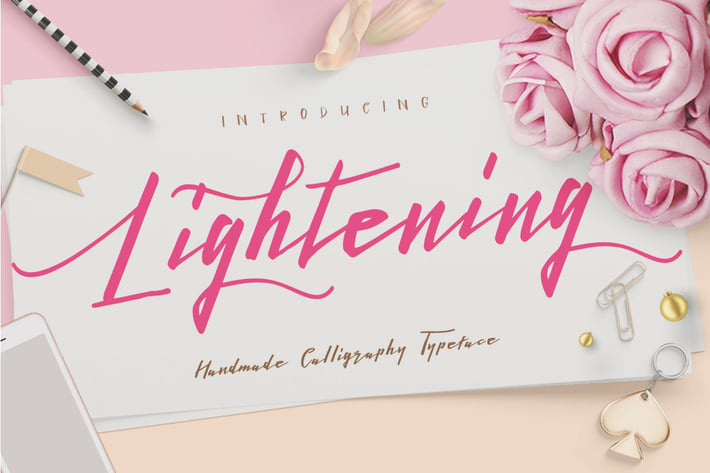
Lightening Script signature font logotype
Lightening Script, is a calligraphy wavy, modern and clasik, perfect for your next design, such as logos, printed quotes, invitations, cards, product packaging, headers and anything else about your imagination.